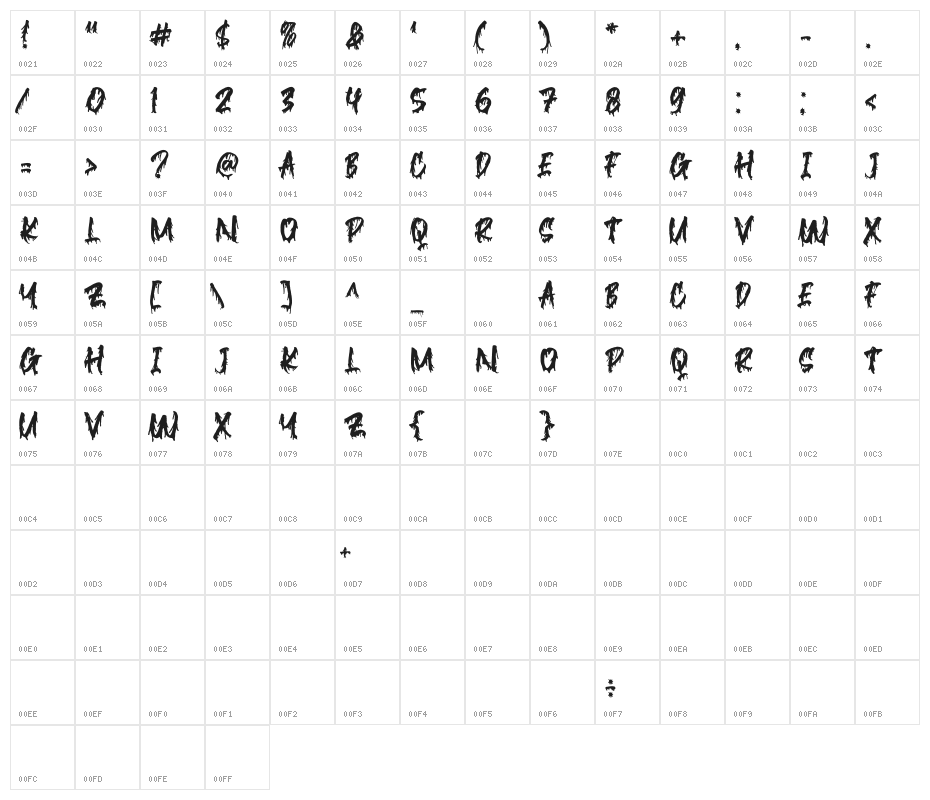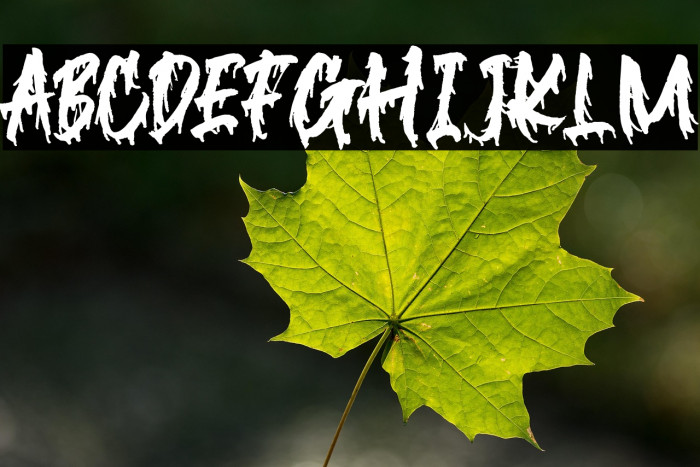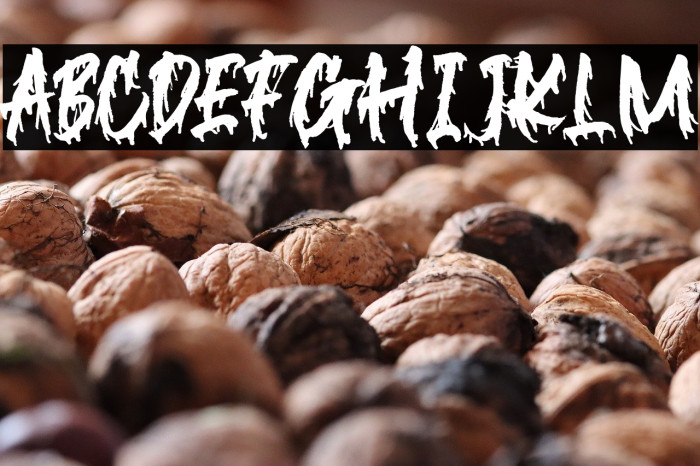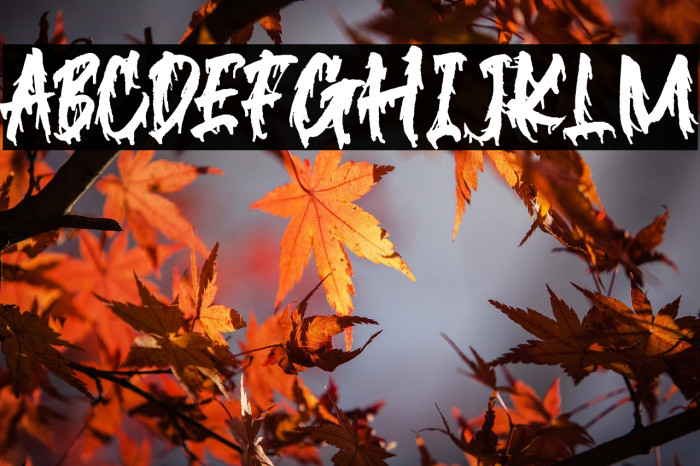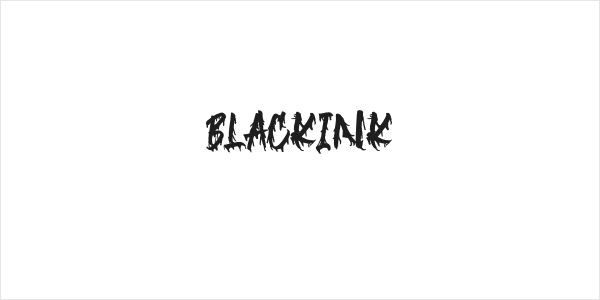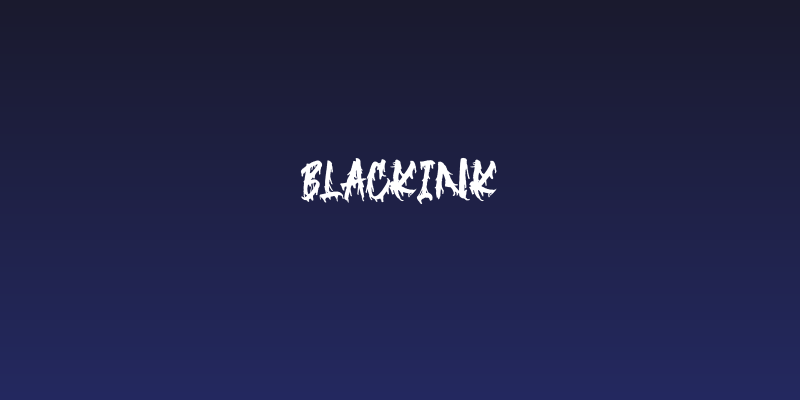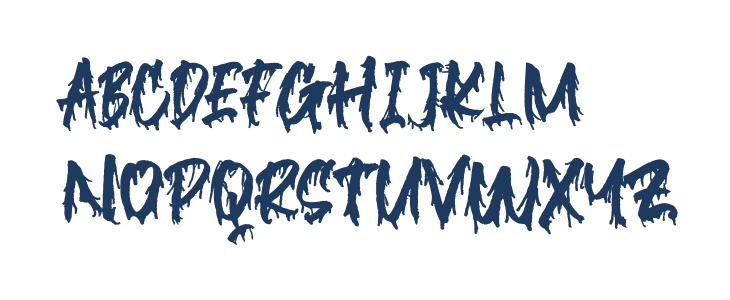
Blackink Font
Blackink Description
This font features a bold and dramatic style with a dripping, ink-like appearance. The characters are heavily stylized, resembling splatters or drips of paint, which gives it a unique, edgy look. The uppercase and lowercase letters maintain a consistent theme, with jagged edges and irregular shapes that add to the chaotic yet artistic vibe. The numbers and special characters follow the same design, ensuring a cohesive appearance across all glyphs. This font is ideal for projects that require a striking and unconventional aesthetic, such as horror-themed designs, music album covers, or edgy branding materials.
| Proposed Projects | Ideal for horror-themed designs, music album covers, edgy branding, and artistic posters. |